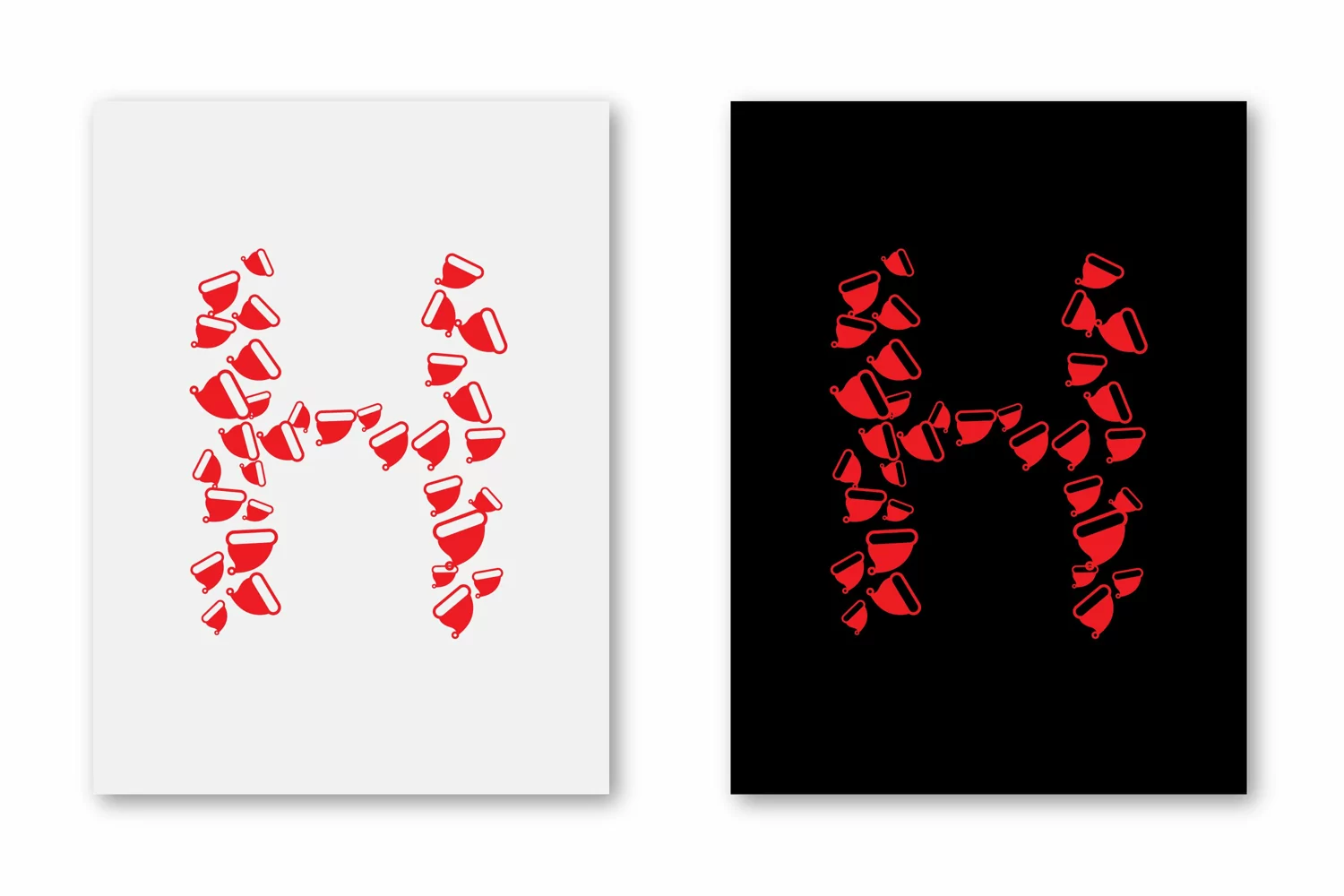
Santa Hat Font - A Fun Christmas Font
Presenting Cute font for you. This Special Christmas day font can be used in tons of projects specially in child and new born projects. You can use it for craft purpose and this will looks great on shirts, printing material and other stuff.
2- UPPER Case only Letters A to Z and 0-9 Numbers
3- Super Cute and Creative